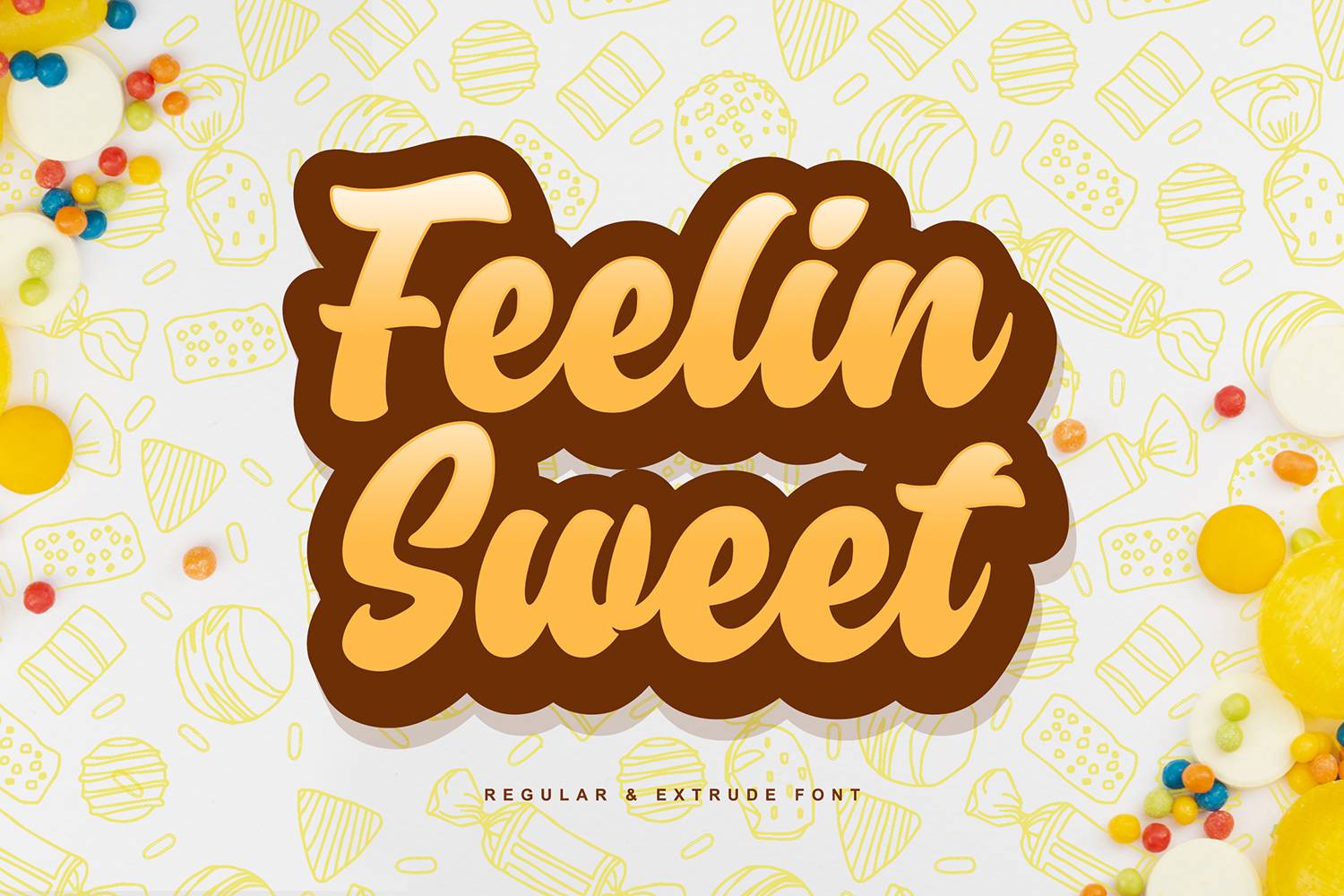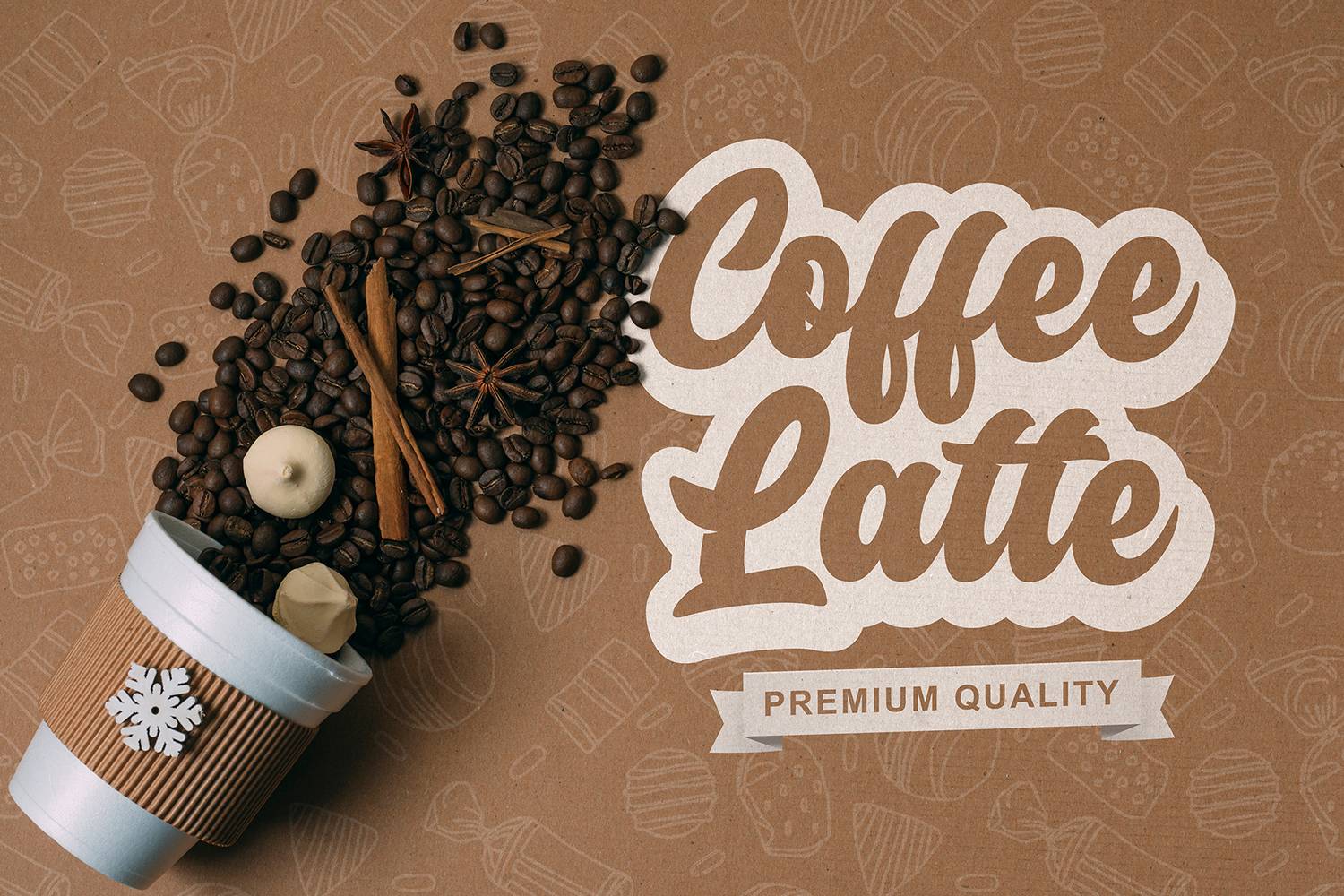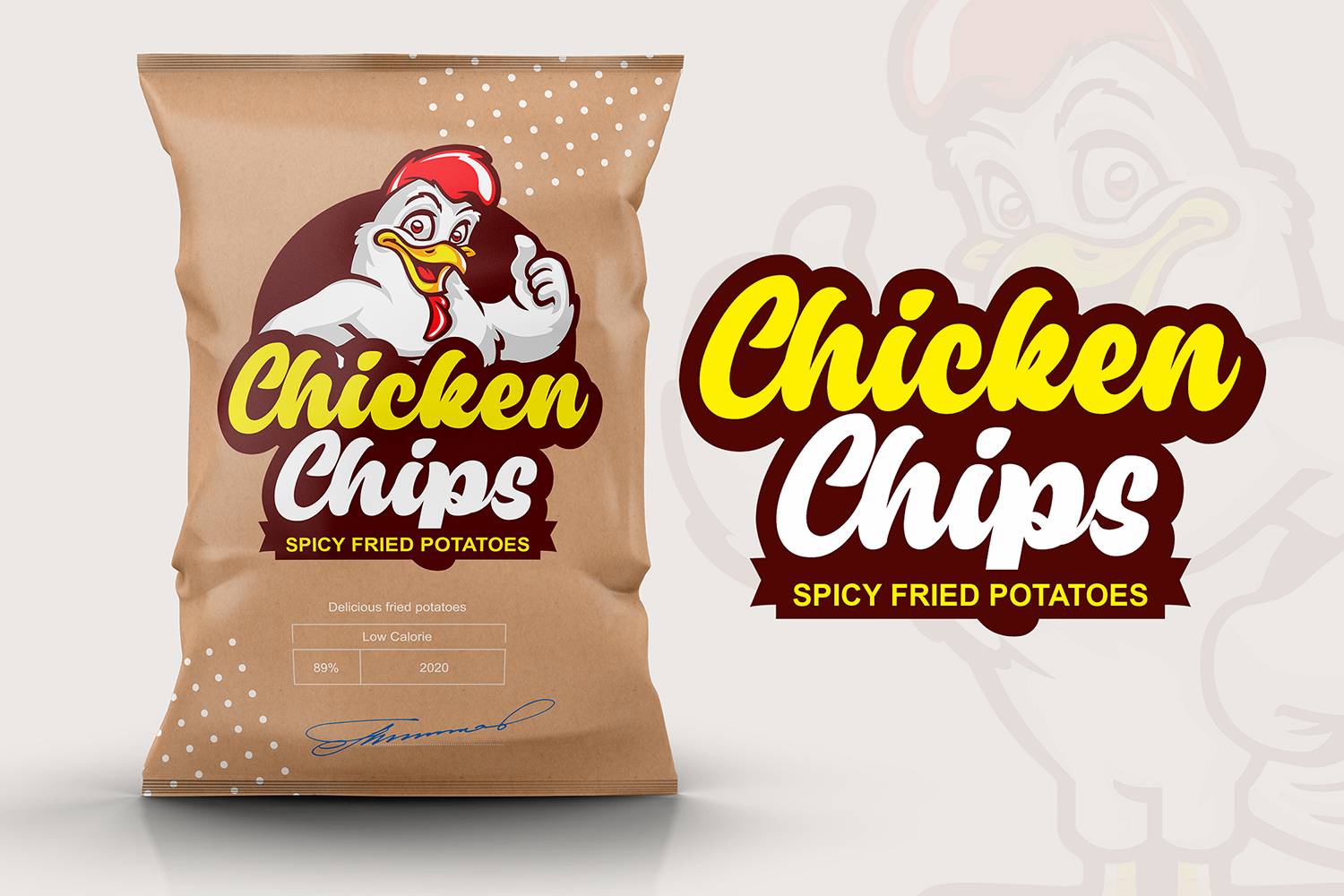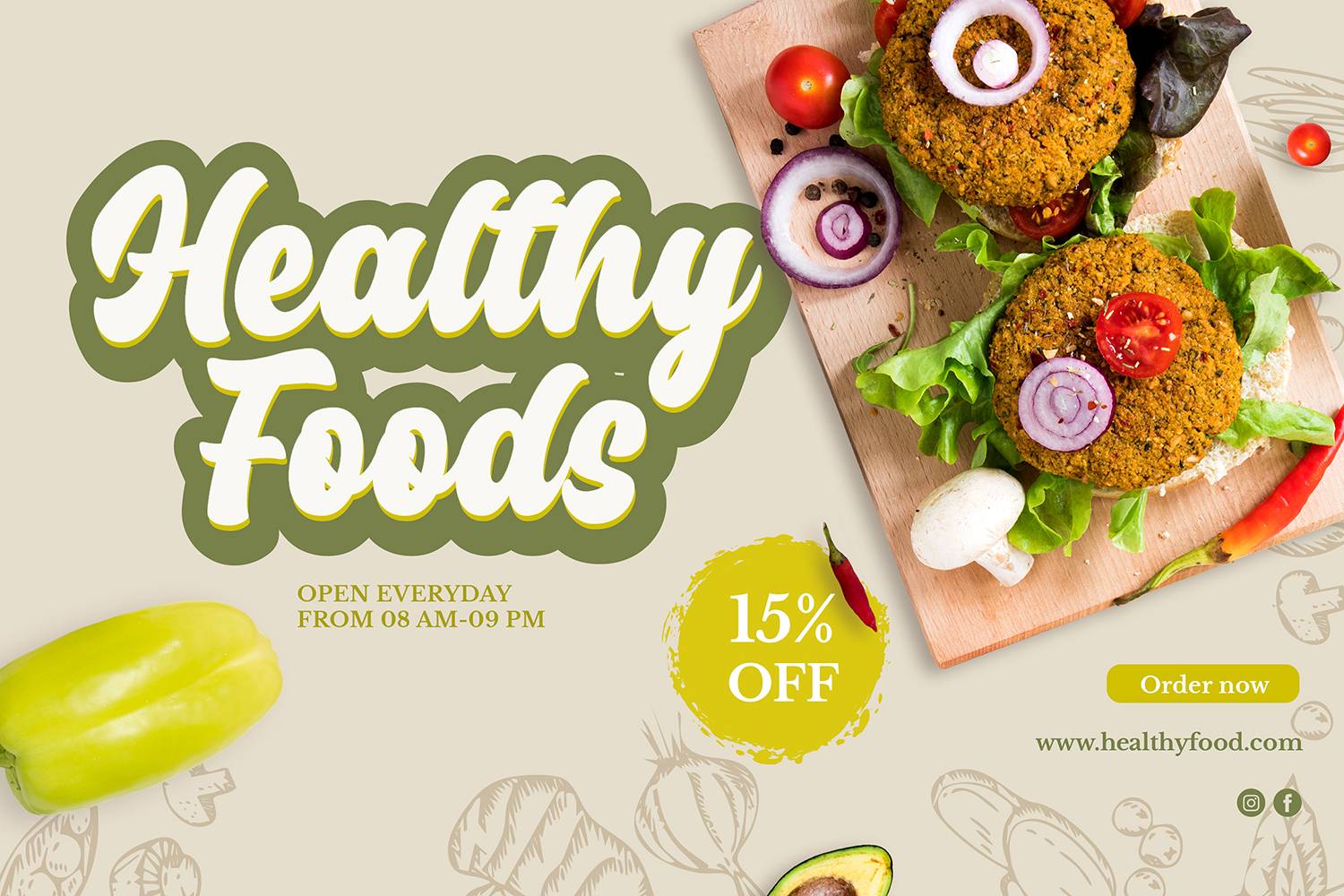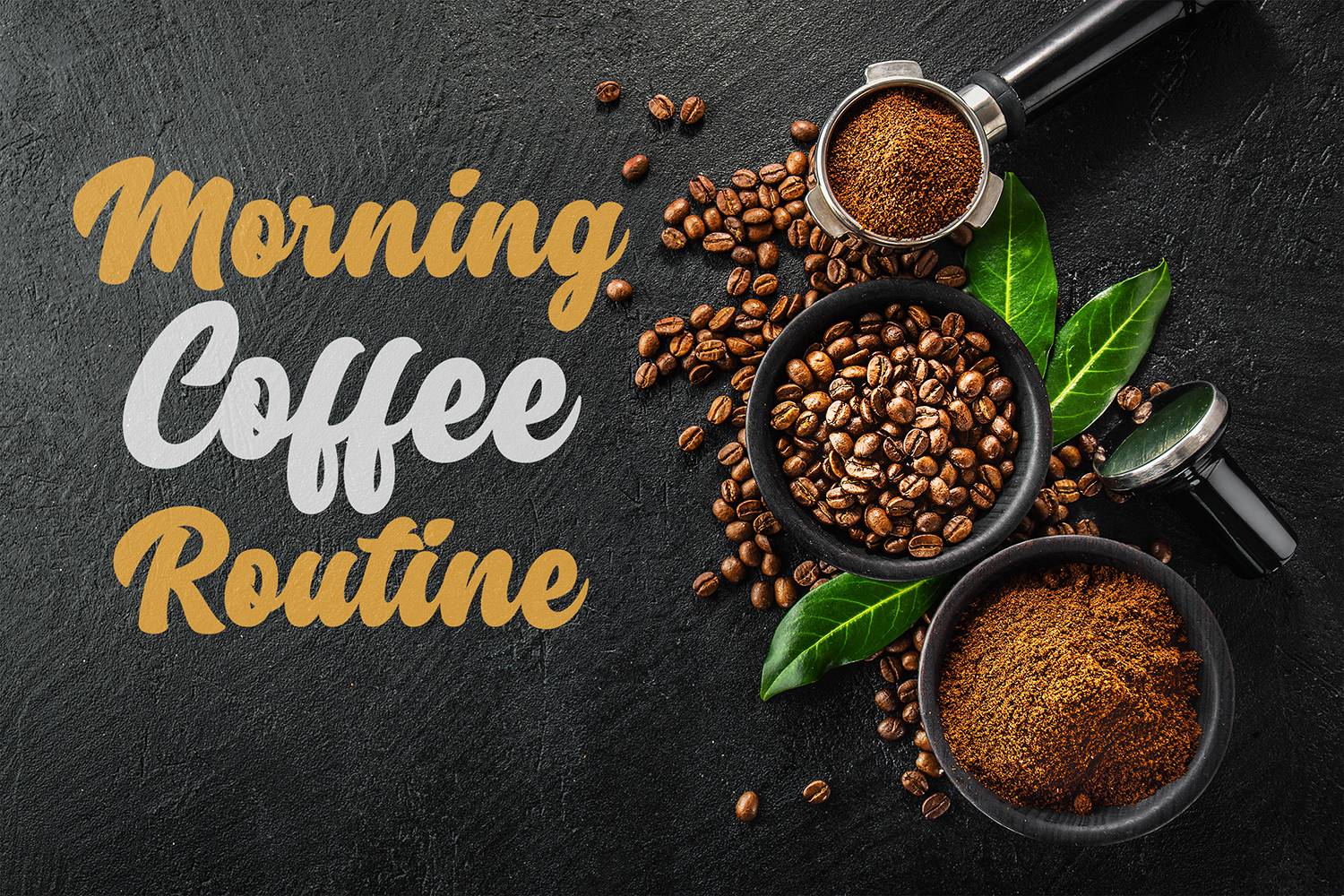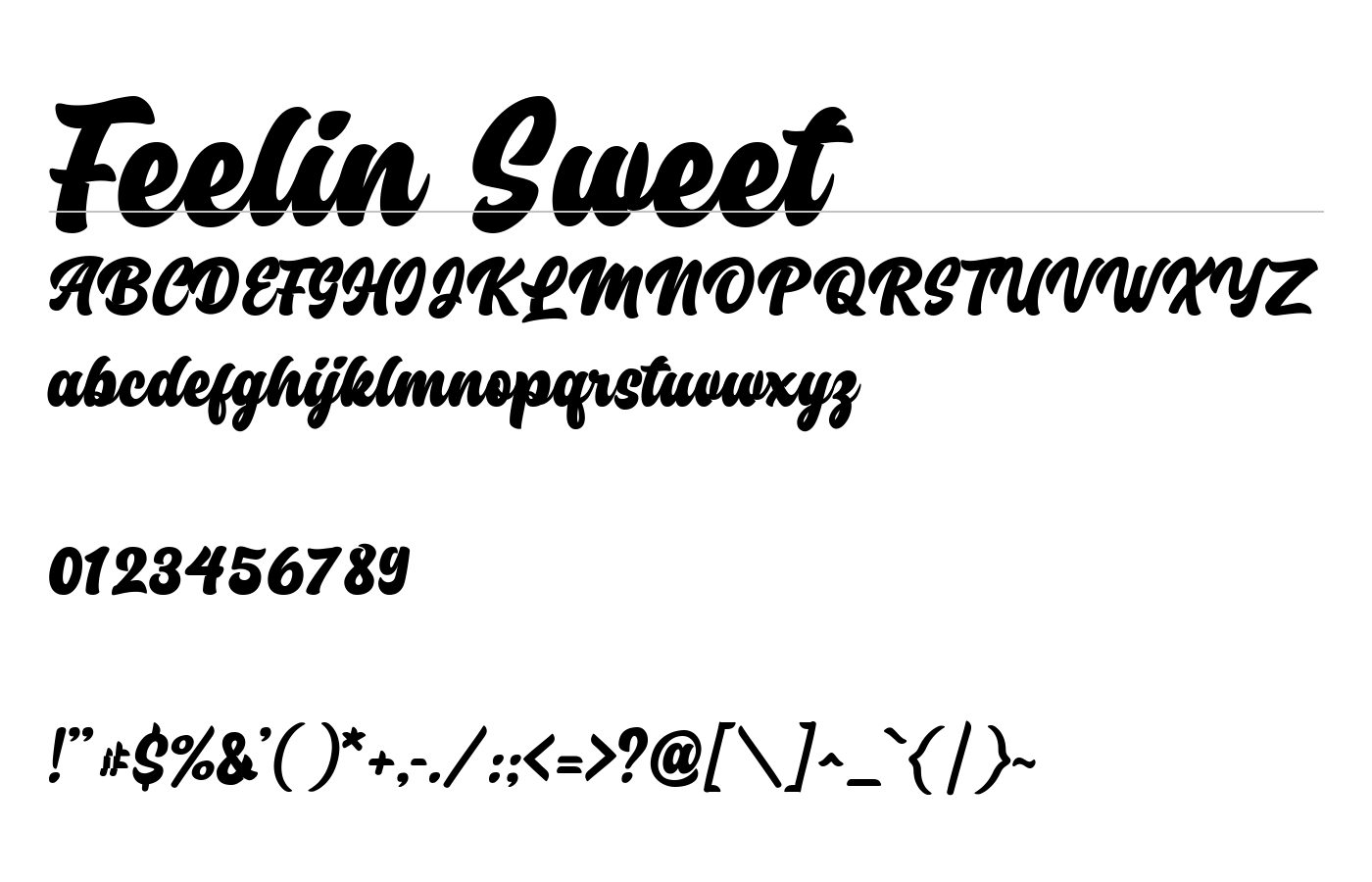
Feelin Sweet is a bold, playful script font with a smooth, handwritten style that brings a warm and inviting charm to any design. Its rounded, flowing letterforms and moderate contrast make it perfect for creating friendly, casual branding, logos, and headlines that need a touch of personality and approachability. This font works well in creative and lifestyle contexts where a fun and sweet impression is desired.
Feelin Sweet Font
About Feelin Sweet Font